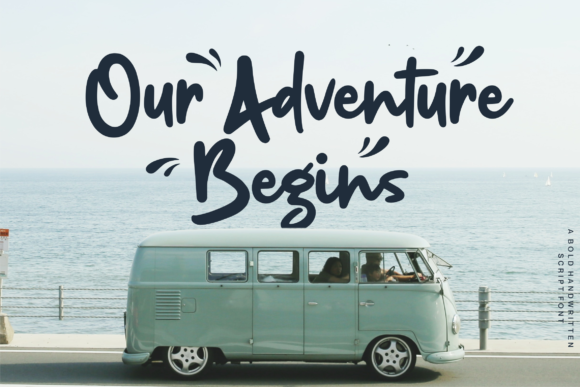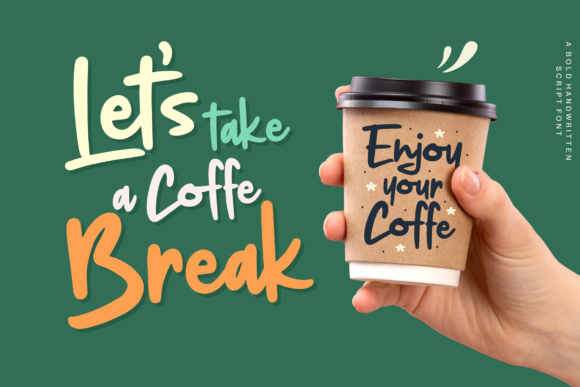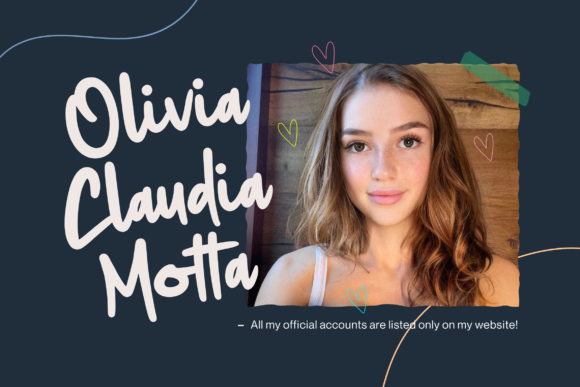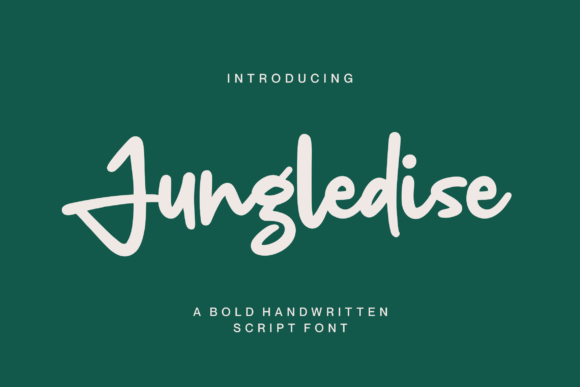
Introduction to Jungledise Font
Jungledise is a relaxed and casual looking handwritten font.
Jungledise is perfect for product packaging, branding projects, magazine covers, social media development, or just used to express words above the background .